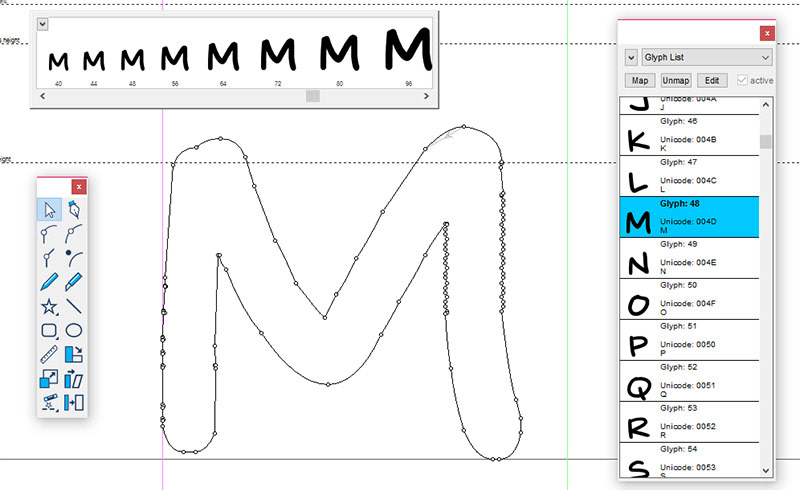
As seen in the webcomic Basic Instructions, this is Boldly Missy — a typeface of my own handwriting I created way back in 2006.
Did I mention that it’s janky? I mean, LOOK AT ALL THOSE EXTRA POINTS! Clearly the automatic tracing software didn’t care about making my JPGs into the smoothest letters possible, and 10 years ago I didn’t know enough to edit out the extraneous points.
Maybe someday I’ll clean it all up. Maybe. Just be aware for now, you probably don’t want to use this font for craft cutting. 😀